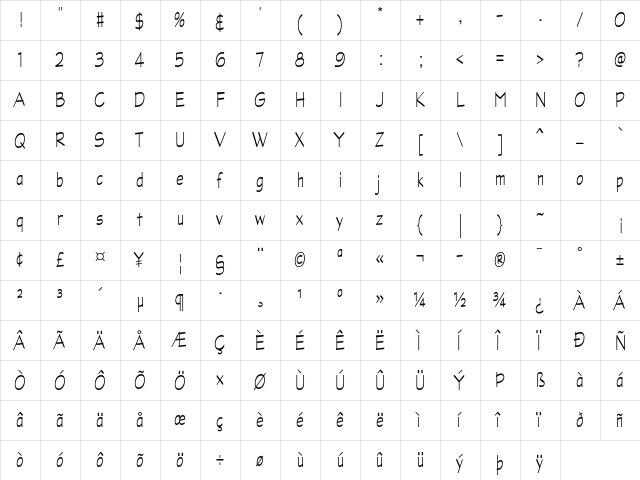
Graphite Std Light Narrow
| Designer | David Siegel |
Design Context for Graphite Std Typeface
Graphite Std takes a measured approach to typography — its balanced proportions and neutral character make it a reliable workhorse for both digital and print work. The delicate stroke weight brings airiness and refinement to layouts. Its narrow stance lets it pack a punch even in space-constrained designs.